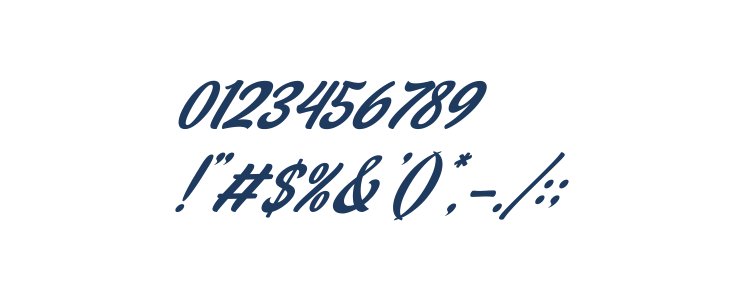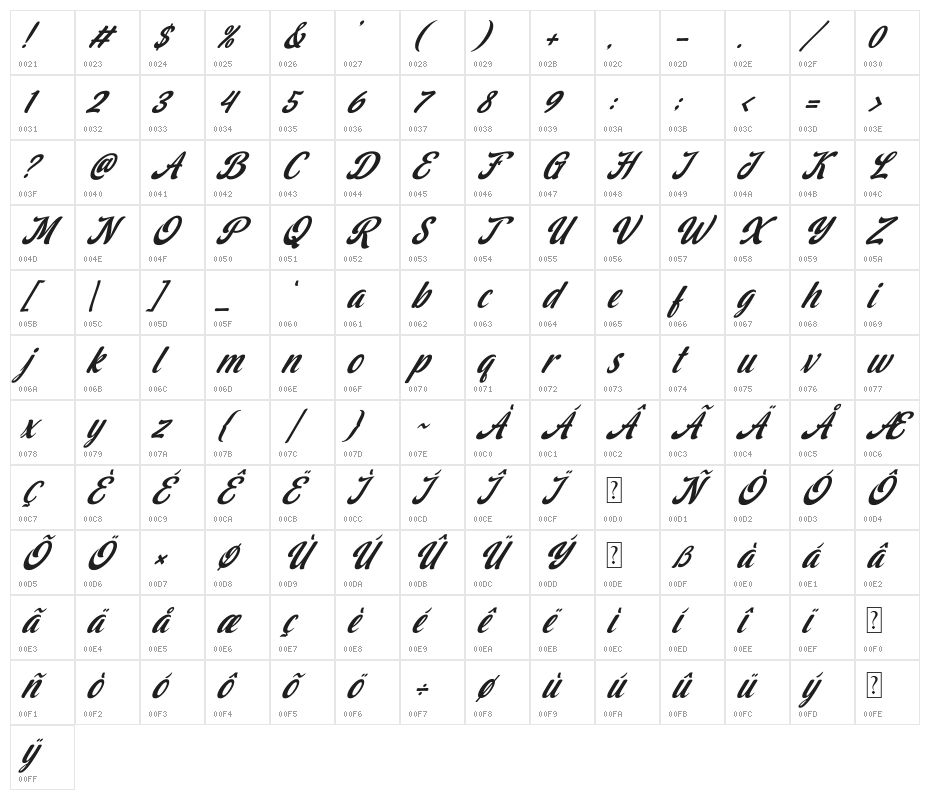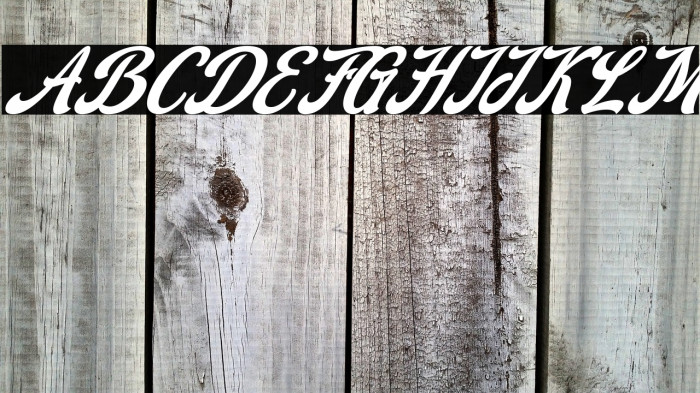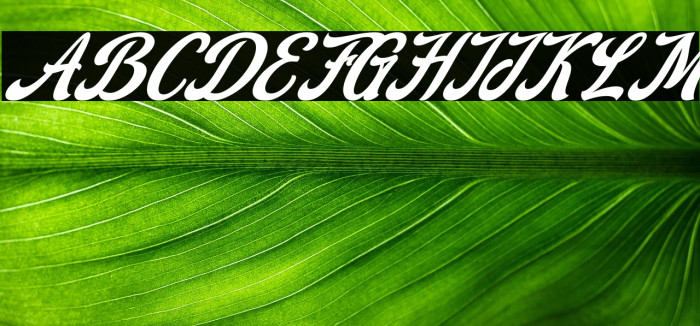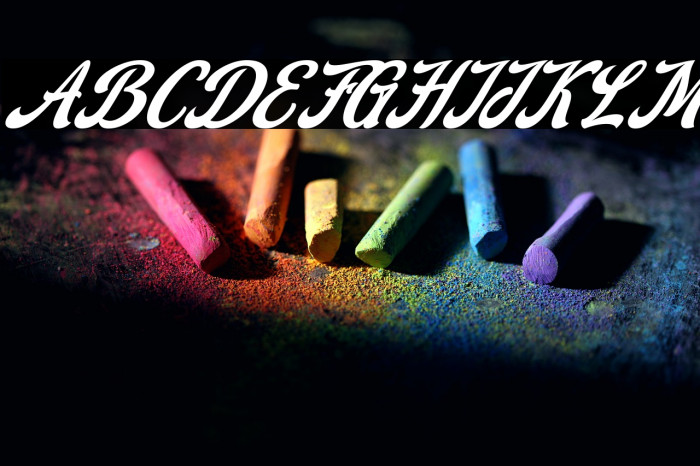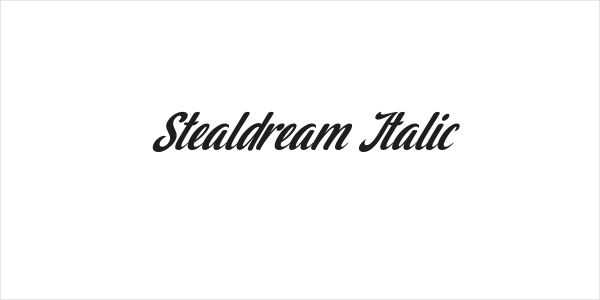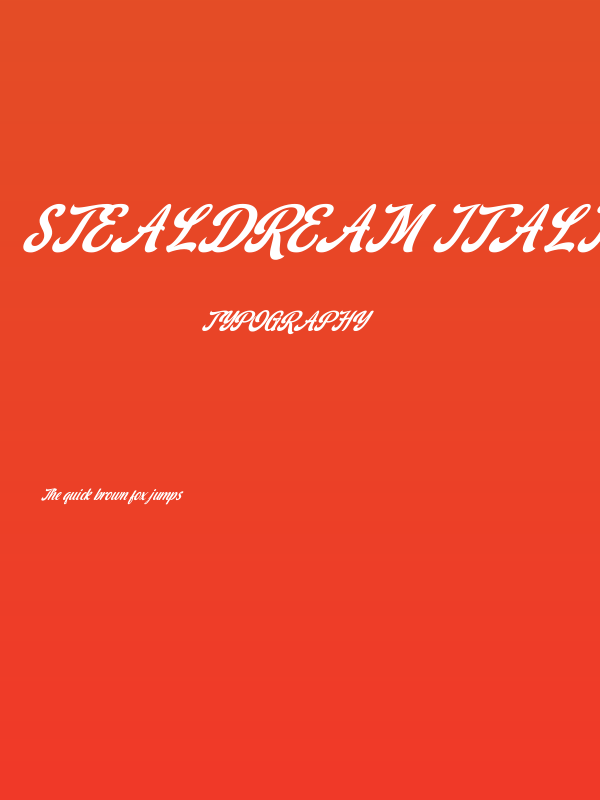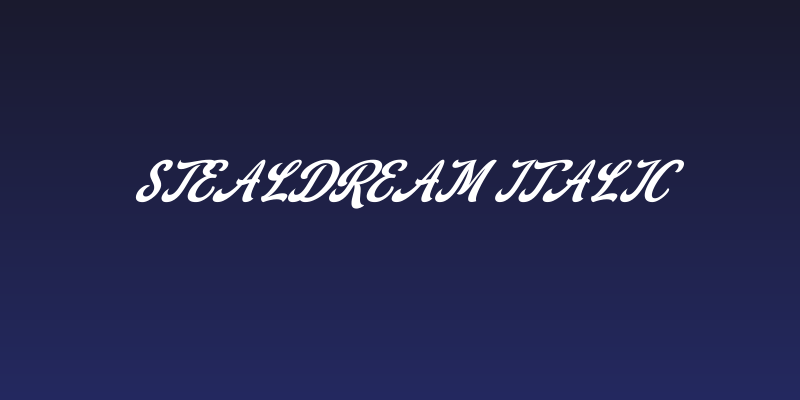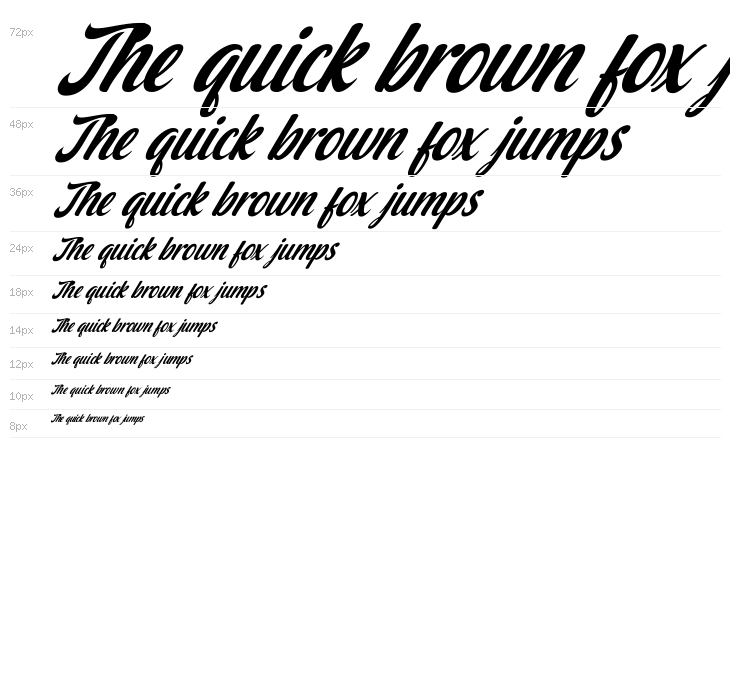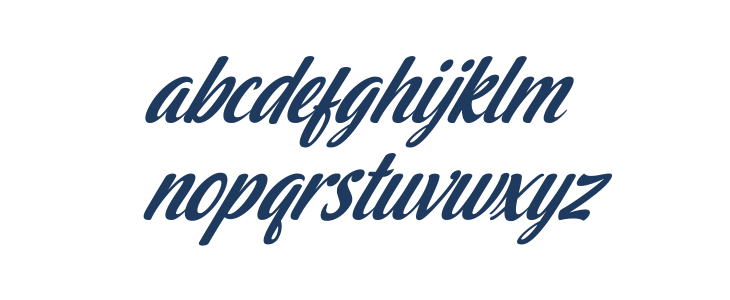
Stealdream Italic Font
Stealdream Italic Description
This font exhibits a bold and dynamic script style with a pronounced italic slant, giving it a sense of movement and elegance. The characters are interconnected with smooth, flowing lines, creating a cohesive and harmonious appearance. The uppercase letters are particularly striking, with exaggerated curves and flourishes that add a touch of sophistication. The lowercase letters maintain a consistent style, complementing the uppercase with their own graceful loops and swashes. The numerals and special characters are designed to match the overall aesthetic, ensuring a uniform look across all text. This font's bold weight and high contrast between thick and thin strokes make it highly legible while retaining its decorative appeal.